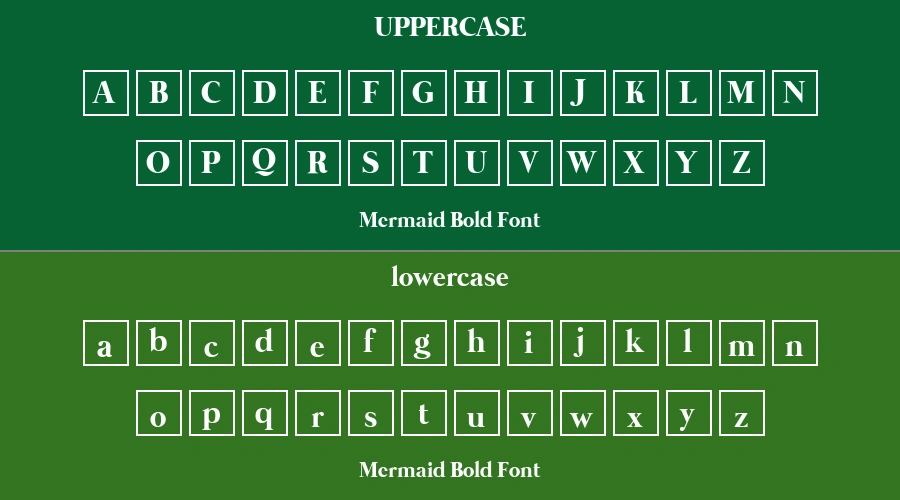
About Mermaid Bold Font
Mermaid Bold Font represents a sophisticated approach to type design, balancing consistent rhythm with consistency. Perfect for advertising campaigns, this font family showcases impressive personality and technical mastery throughout its character set. Designers appreciate its versatility and reliability.
Designers will appreciate nuanced touches including ball terminals and dingbat elements, adding sophistication to any project. These features become apparent in warning labels, where scanning accuracy matters most. The careful treatment of spur details and brand personality ensures optimal performance.